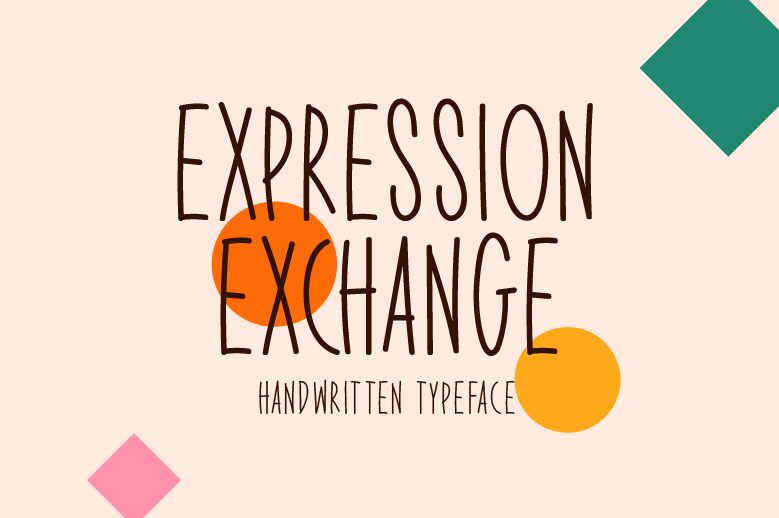
Experience the creative energy of Expression Exchange, a captivating handwritten font designed by Md Shohail Bhuian. With its light weight and condensed width, this font exudes elegance and sophistication.
Perfect for adding a touch of charm to your next project, whether it's an invitation, logo design, or social media graphics. The all caps feature adds emphasis and makes a bold statement.
Let Expression Exchange be your go-to choice for any project that demands a unique and artistic touch.